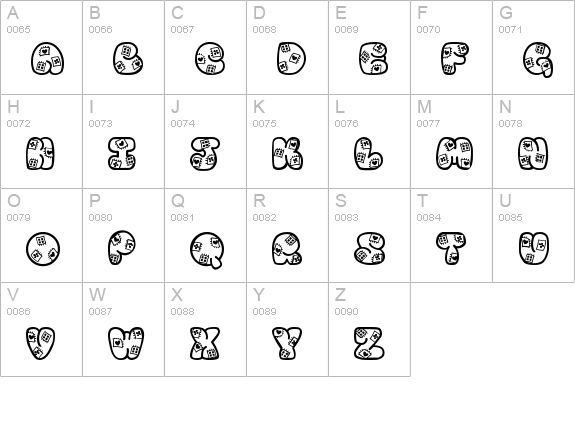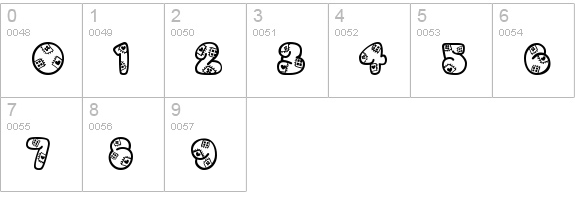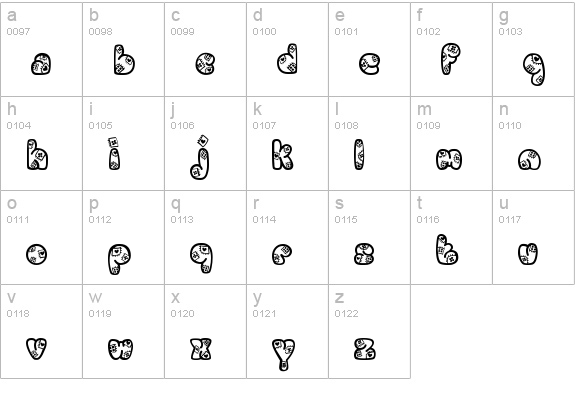
Patches Font Details
Introducing Patches Font, a versatile and captivating typeface that combines the perfect balance of playfulness and sophistication. This unique font is sure to catch the eye and add a touch of whimsy to any design project. With its charming irregular shapes and hand-drawn appearance, Patches Font brings a sense of warmth and authenticity to your typography. Each letter is meticulously crafted with meticulous attention to detail, resulting in a truly one-of-a-kind typeface that stands out from the crowd. Not only does Patches Font offer a wide range of uppercase and lowercase characters, but it also includes an array of ligatures and alternates, allowing you to create endless combinations and truly customize your designs. Whether you're designing a logo, branding materials, or social media graphics, Patches Font offers the flexibility and versatility you need to bring your vision to life. And the best part? Patches Font is available for free! That's right, you can freely download this amazing font at FontsMarket.com. Say goodbye to expensive font licenses and hello to creative freedom. Patches Font empowers designers of all levels to explore their creativity without any restrictions. So why wait? Unlock the potential of your designs with Patches Font. Download it for free today at FontsMarket.com and let your imagination run wild. Whether you're a professional designer or a creative enthusiast, Patches Font is the perfect addition to your font collection. Get ready to make a statement and captivate your audience with this stunning and freely available typeface.